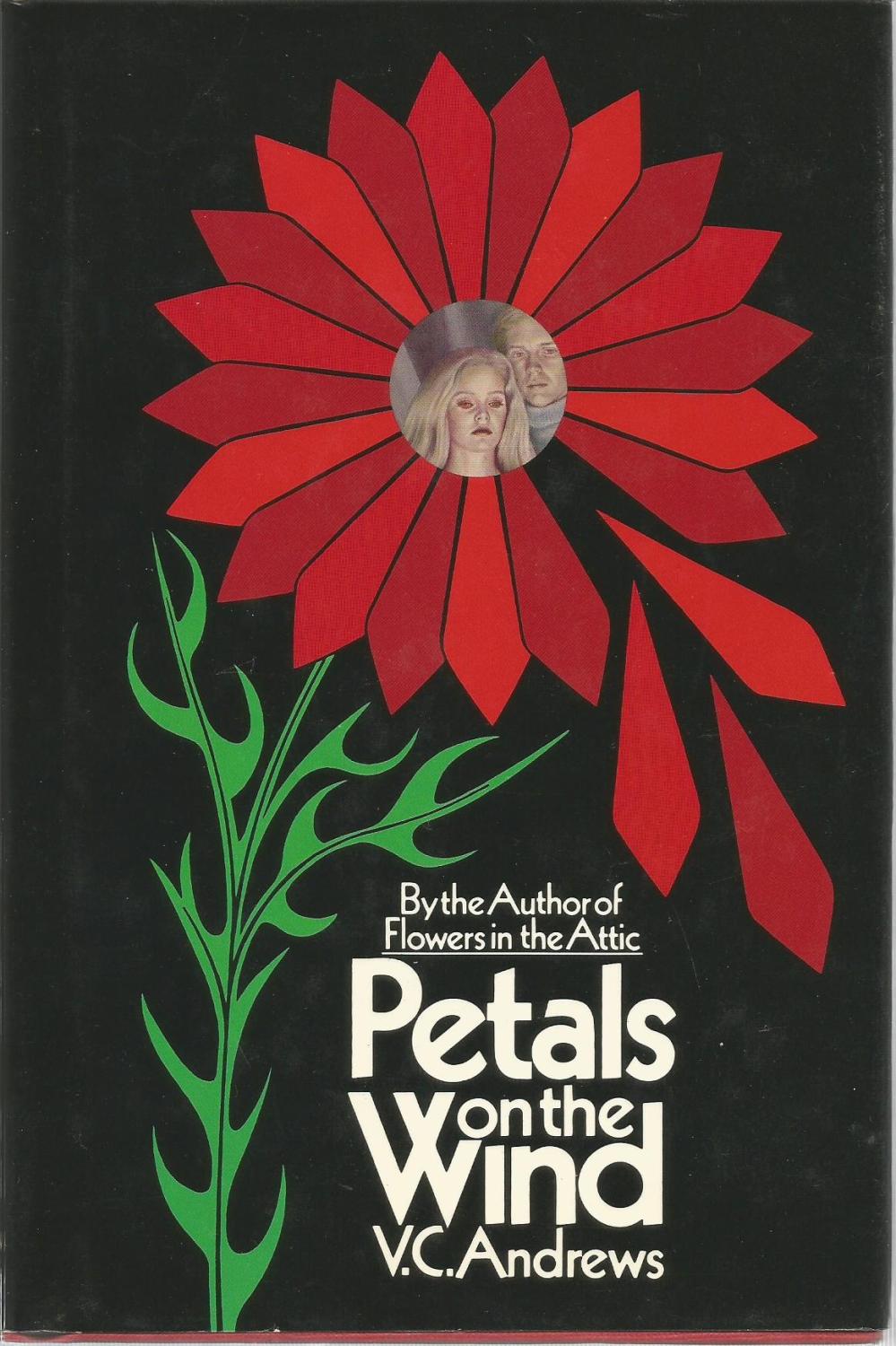
Petals on the Wind Font
BookPetals on the Wind is a novel by V.C. Andrews, the second book in the Dollanganger series. It follows the lives of the four Dollanganger siblings, Cathy, Chris, Carrie, and Cory, as they try to rebuild their lives after the traumatic events that occurred in the first book, Flowers in the Attic.
ITC Kabel Demi is the font style used for the book title on the book cover. Kabel, a geometric sans serif created by Rudolf Koch, is named in recognition of the installation of the first trans-Atlantic telephone wire and has a comparatively large x-height. A Lifetime original movie based on the book was released in 2014. Bernhard Gothic Medium is the font used for the film title in the poster as seen below.